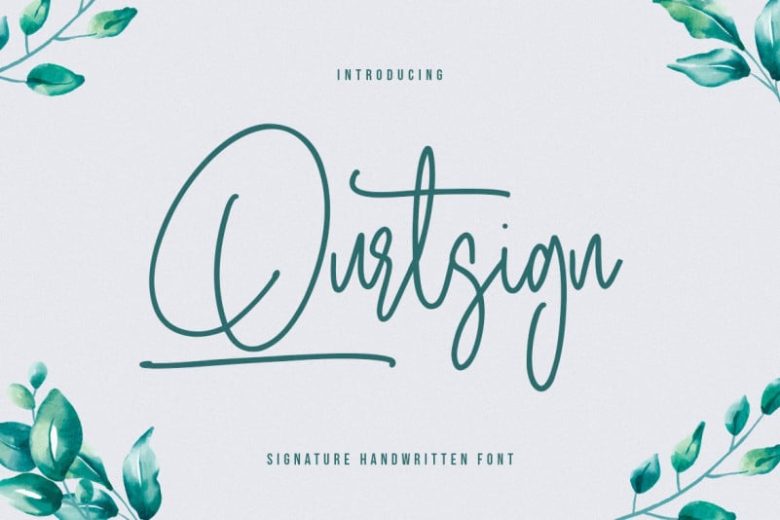
Qurtsign Signature Font
Qurtsign is a script font with handwritten signature style. It flows like a signature while you type it. It really shows the art of hand-work. It is very legible even though its nature looks like it has extreme lines.
Give your designs an authentic handcrafted feel. “ Qurtsign” is perfectly suited to signature, stationery, logo, typography quotes, magazine or book cover, website header, clothing, branding, packaging design and more.